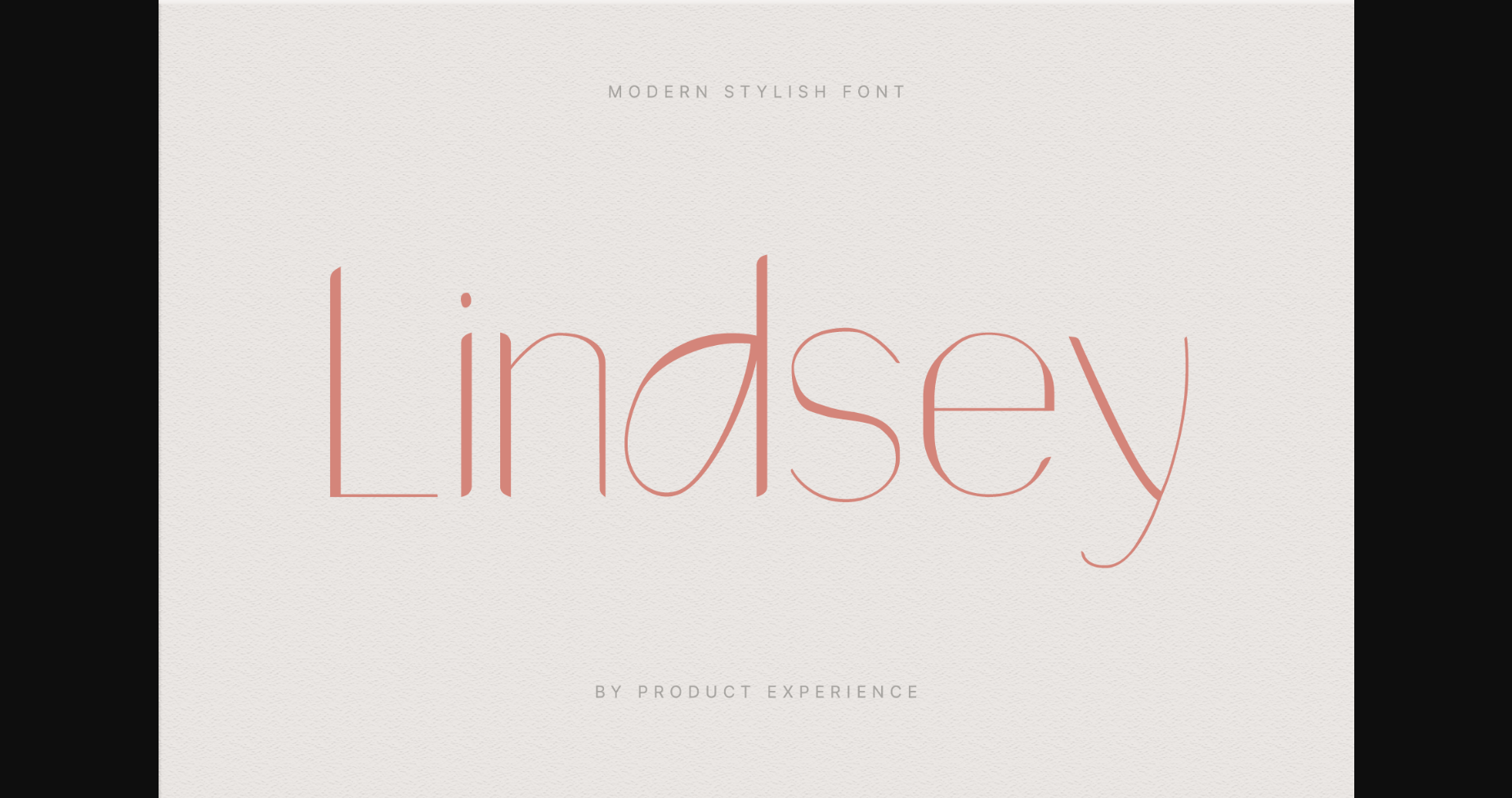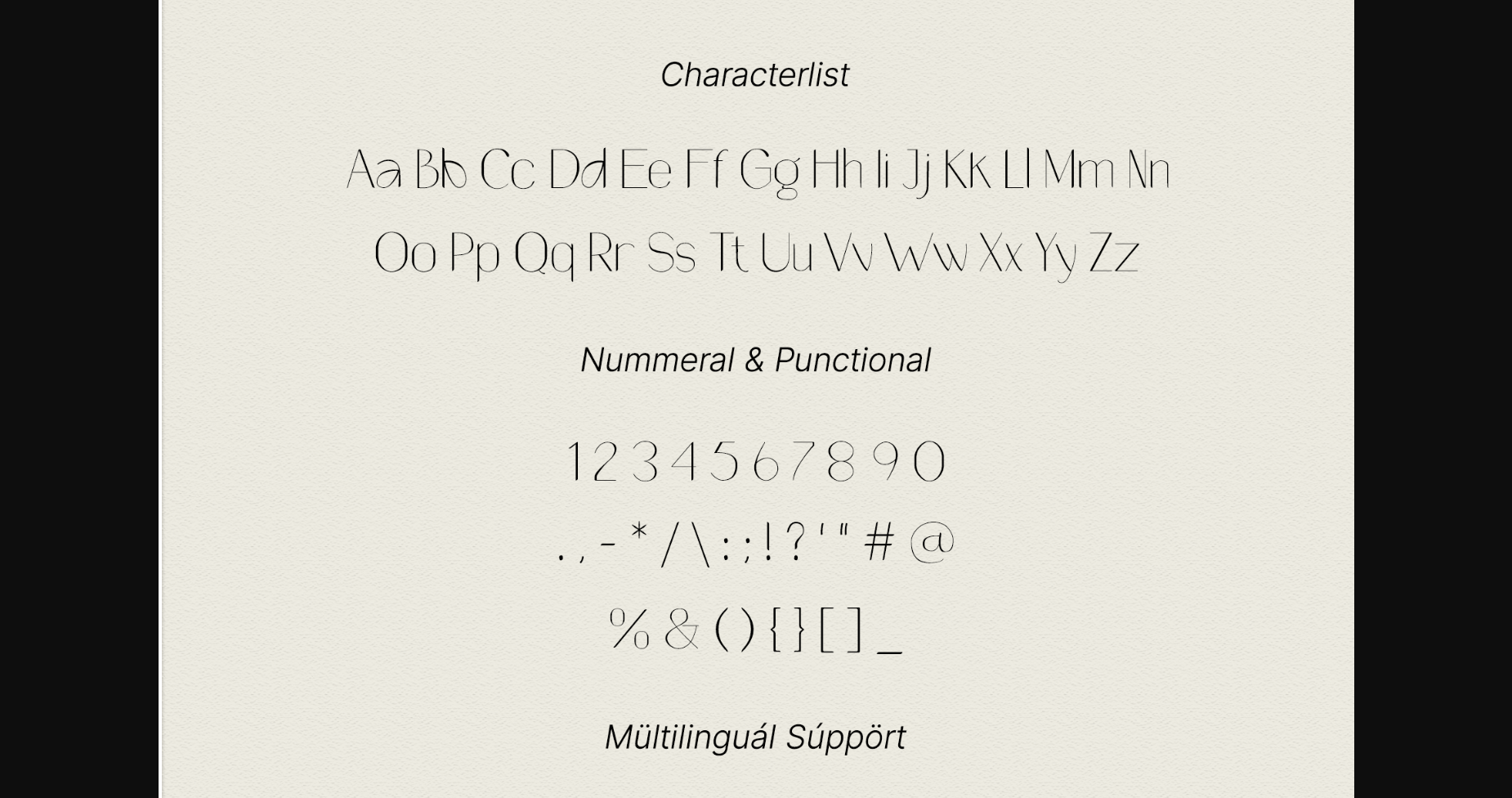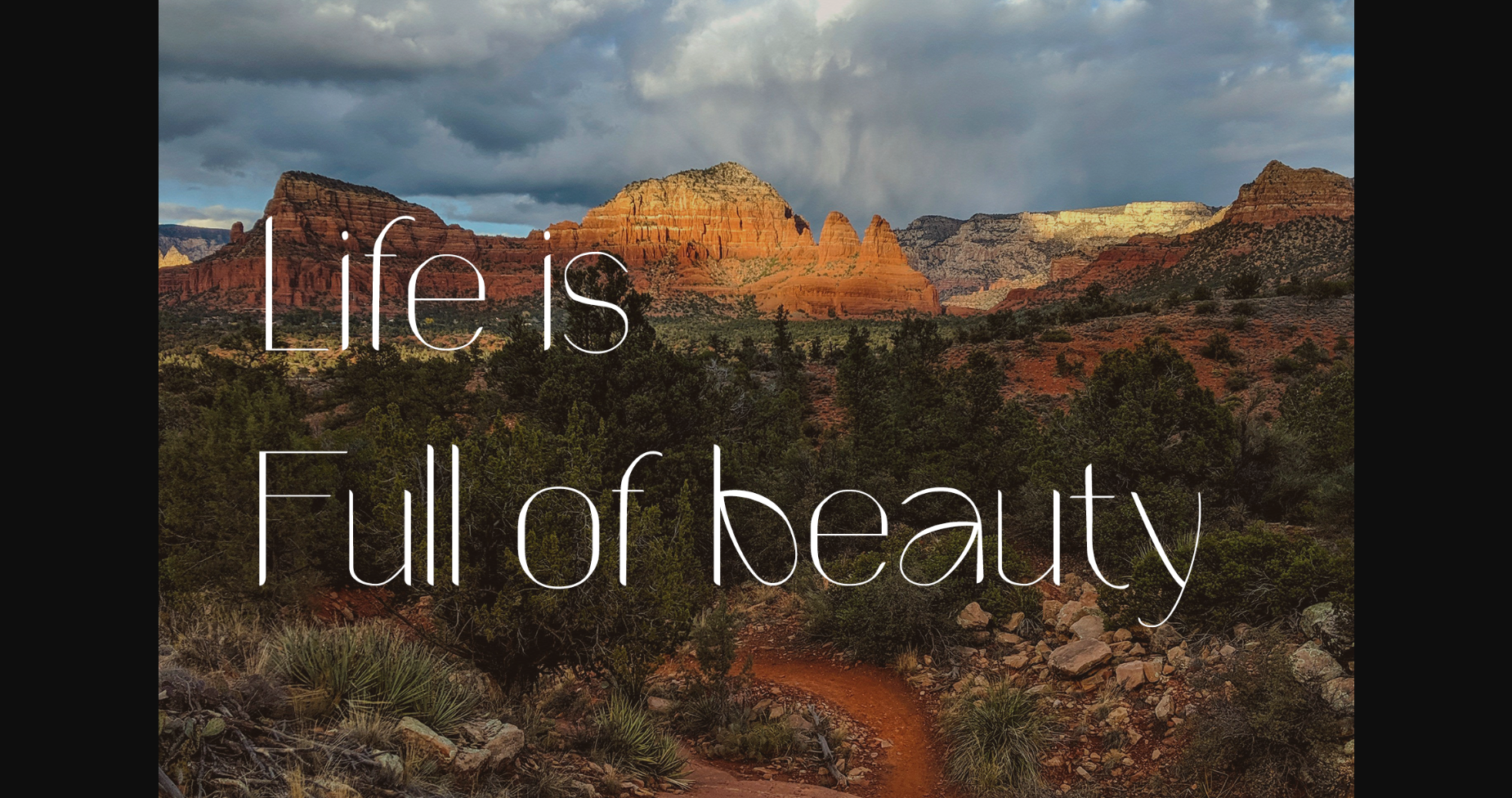
About Lindsey Font
Lindsey is a thin and delicate sans serif font. Suitable to a wide variety of designs due to its neat and simple style, this font has the potential to become your favorite go-to font, no matter the occasion!